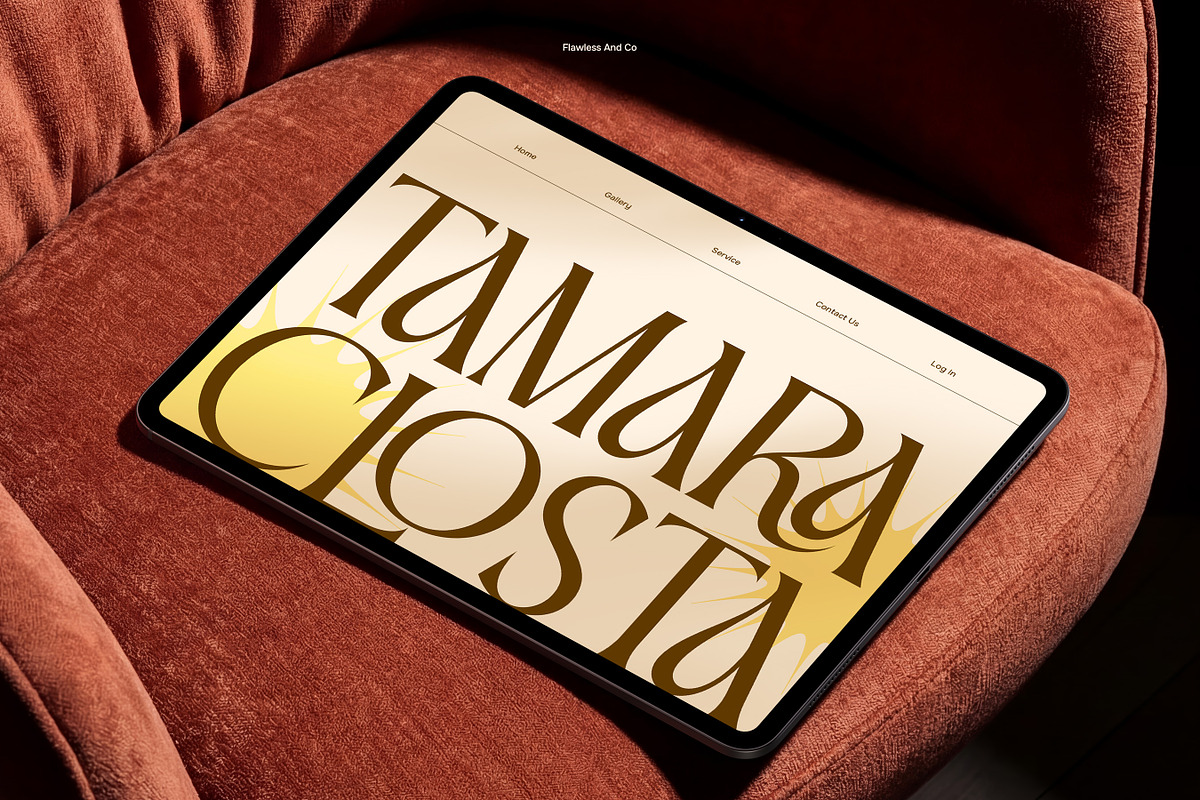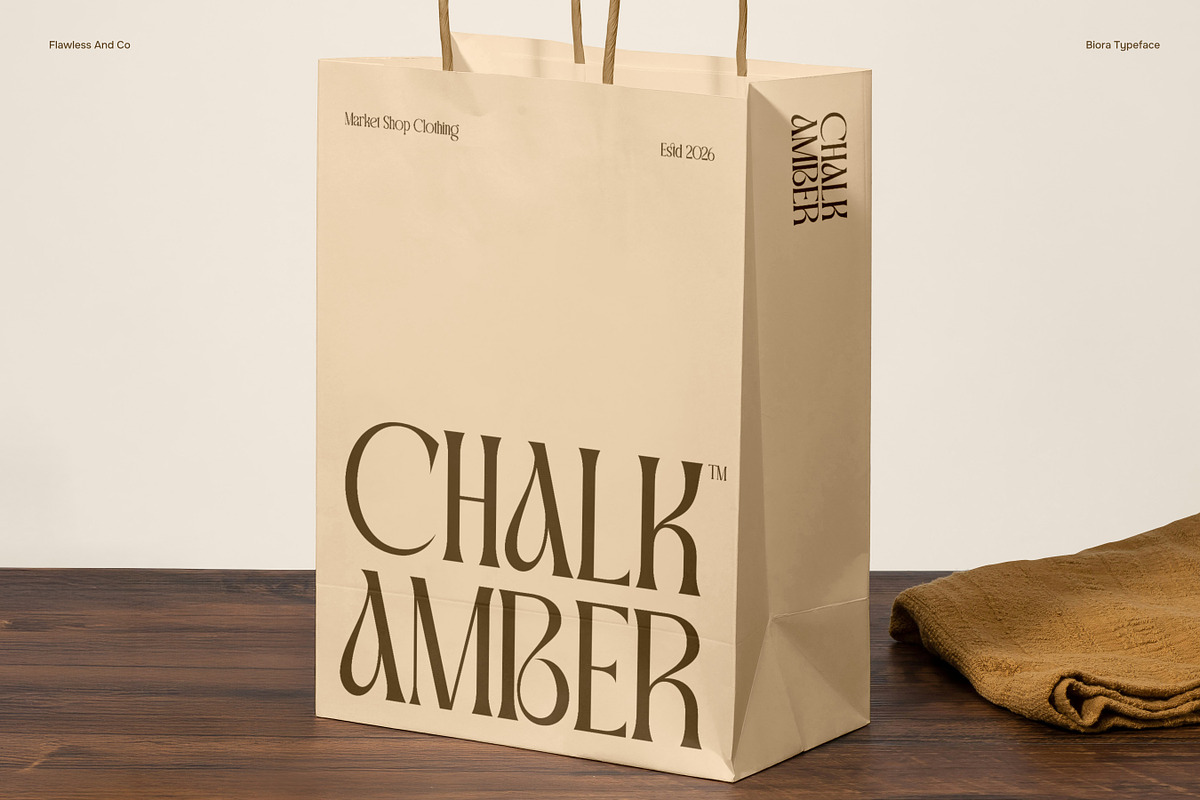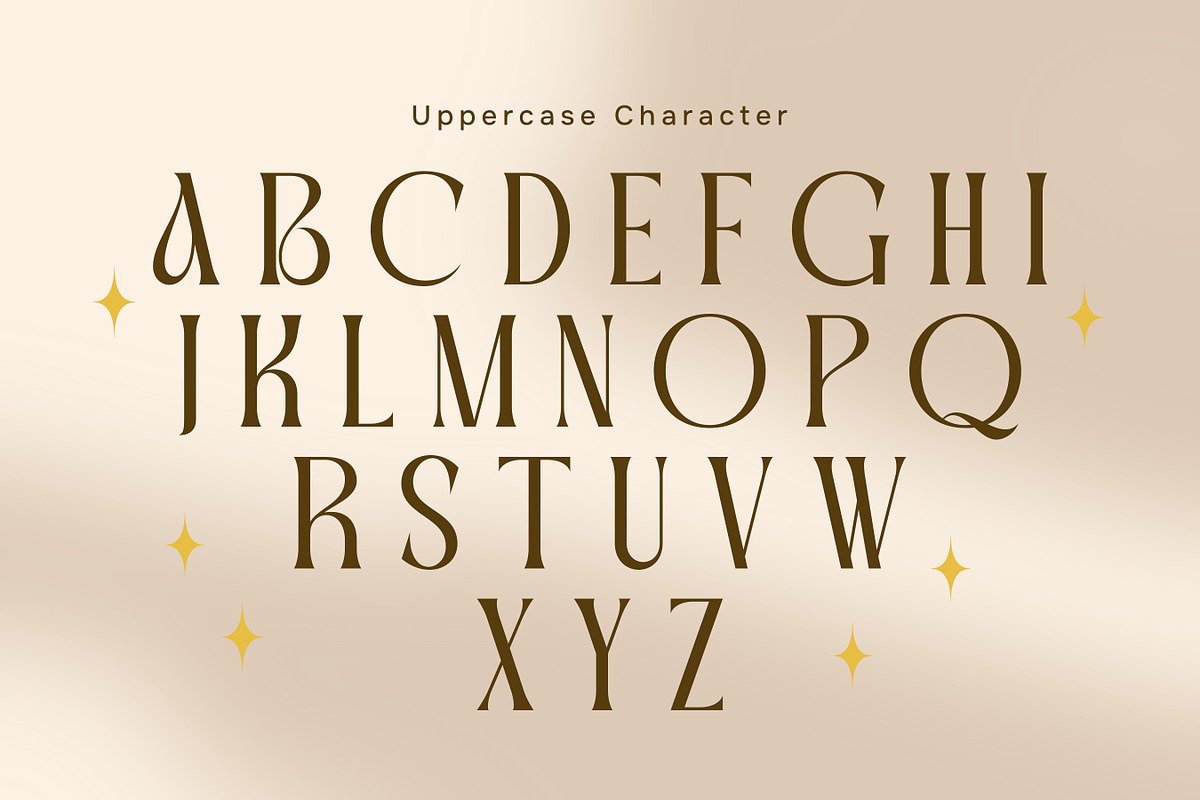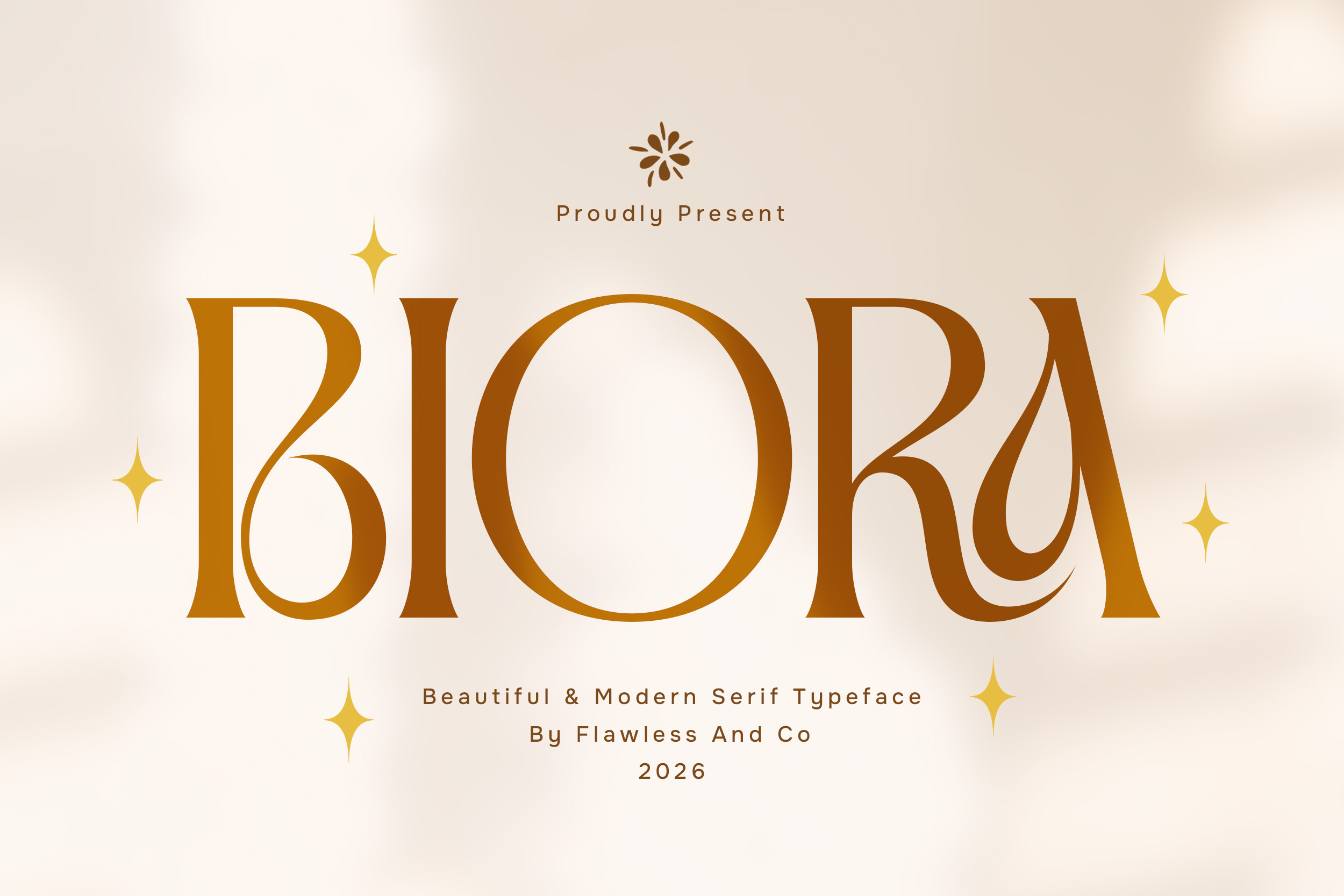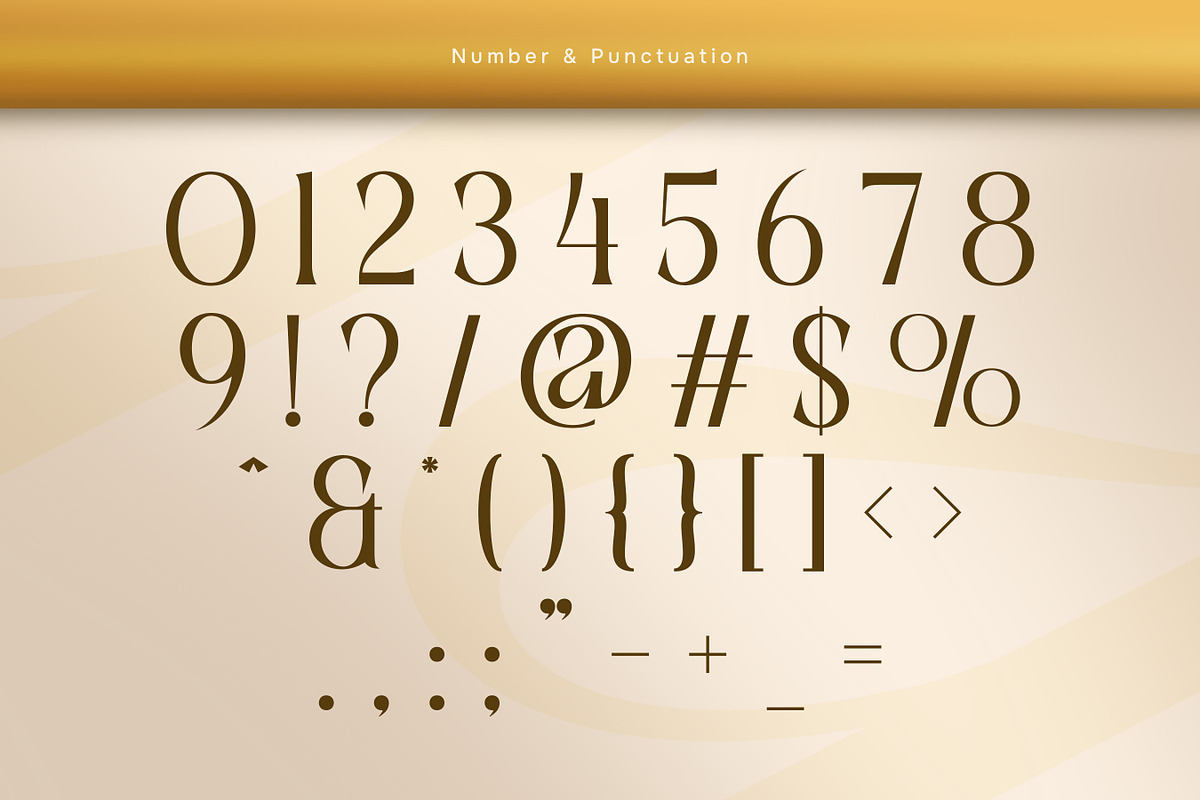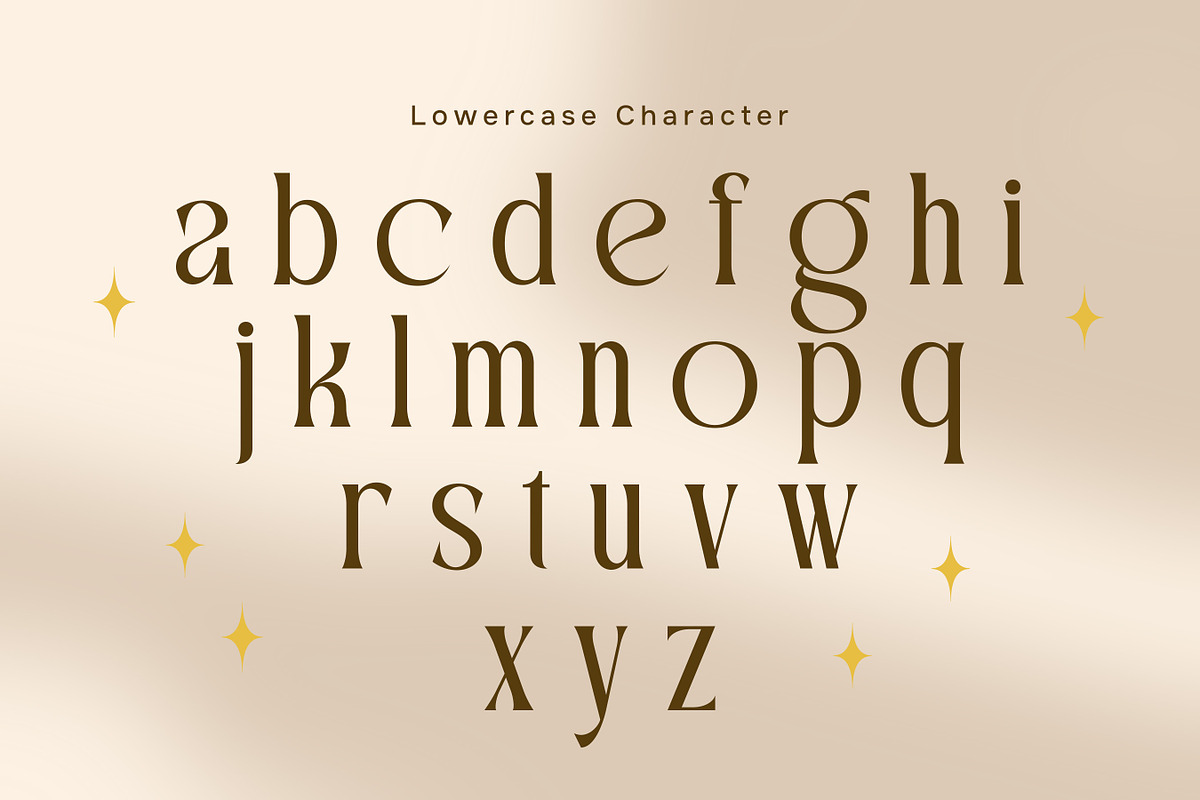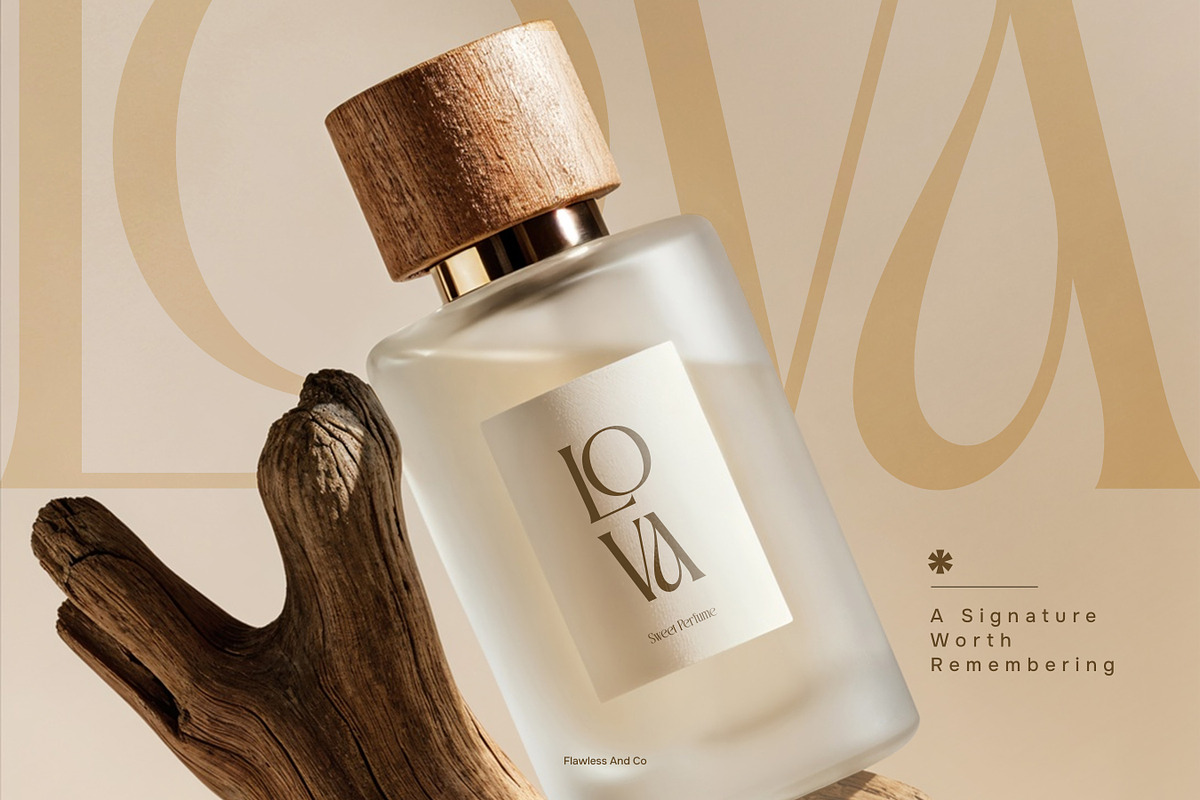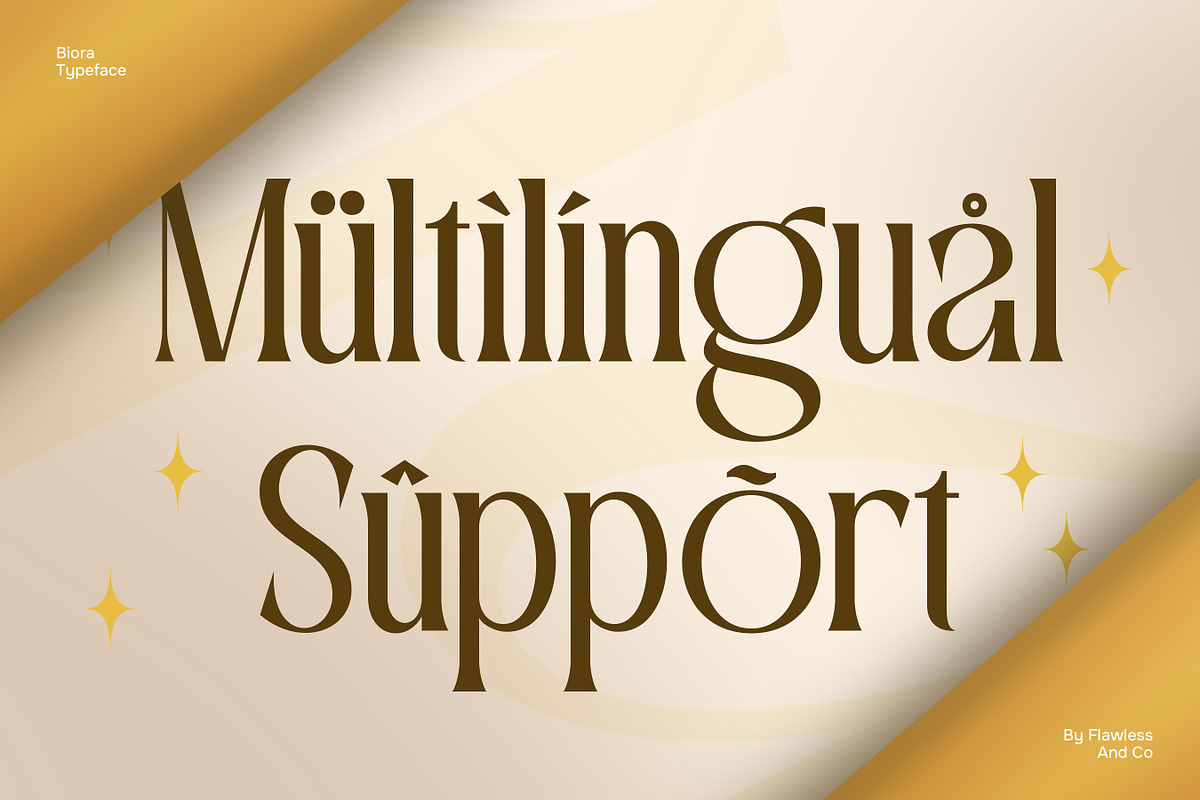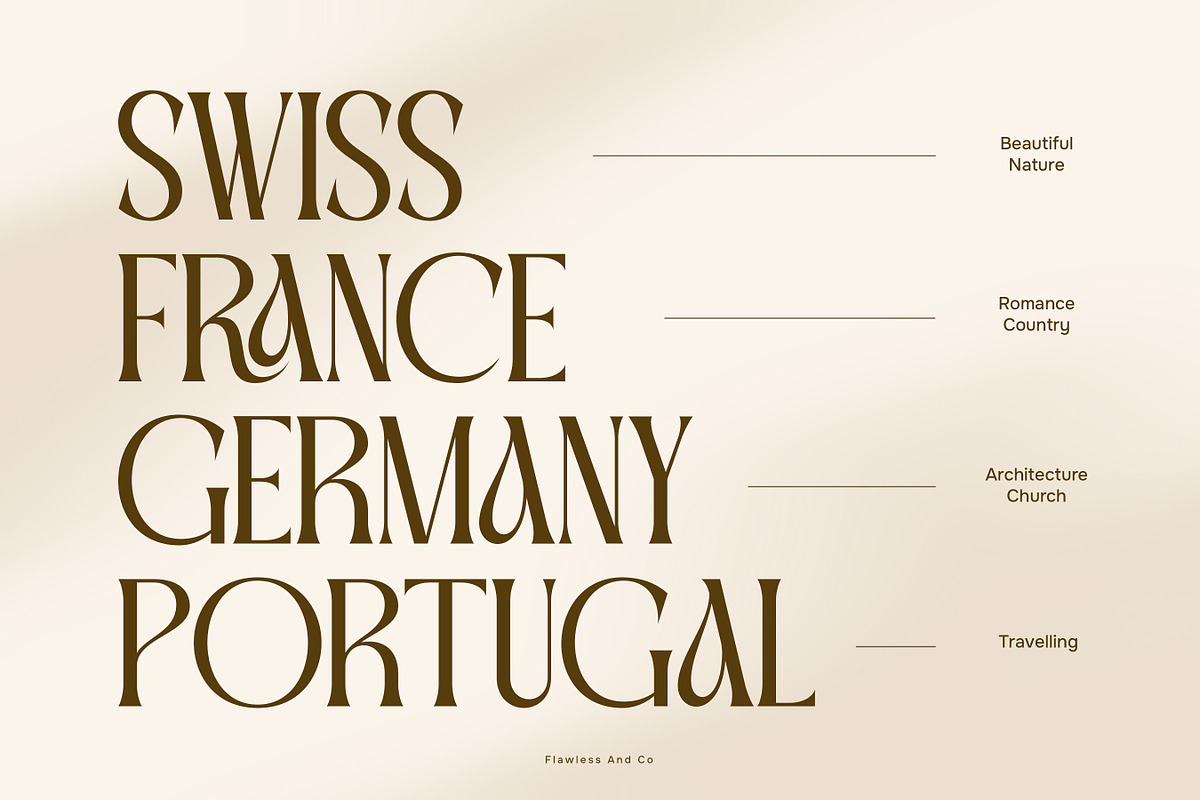
Biora - Elegant Serif Display Font
Biora is a modern elegant serif display font designed to bring sophistication, beauty, and a refined editorial character to your typography. Featuring graceful curves, elegant serifs, high-contrast strokes, and beautifully balanced proportions, Biora creates a polished and luxurious impression in every design.
Uppercase & Lowercase Alternates & Ligatures Numerals & Punctuation Multilingual Support
Who Should Use Biora?
Biora is perfect for graphic designers, fashion brands, beauty businesses, branding agencies, creative studios, boutique owners, wedding designers, publishers, and entrepreneurs looking for an elegant serif display font with a modern and luxurious personality.
Suitable For:
Luxury logo and branding Fashion brand identity Beauty and cosmetic branding Perfume and fragrance packaging Jewelry and accessories Editorial and magazine design Wedding invitations and stationery Premium product packaging Boutique and lifestyle branding Social media and advertising Book covers and titles Elegant headlines and wordmarks